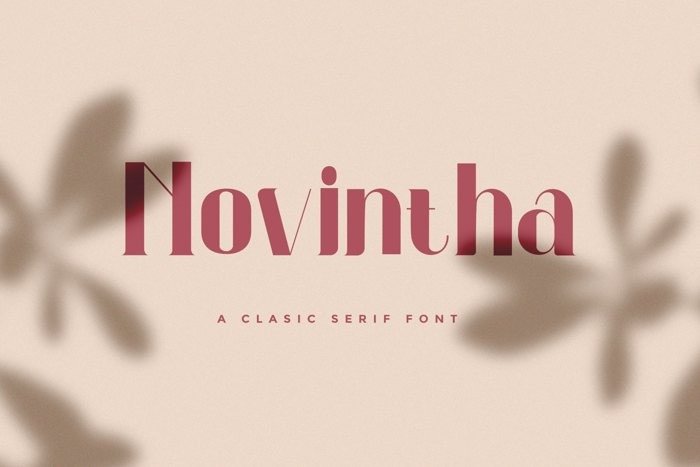
Novintha Serif Font
Novintha Font is a condensed serif typeface. It has a little bit of personality and can be used for headers and body copy but is mainly intended for headers. This font includes all Latin characters (including accents), numbers, special characters, and punctuation.